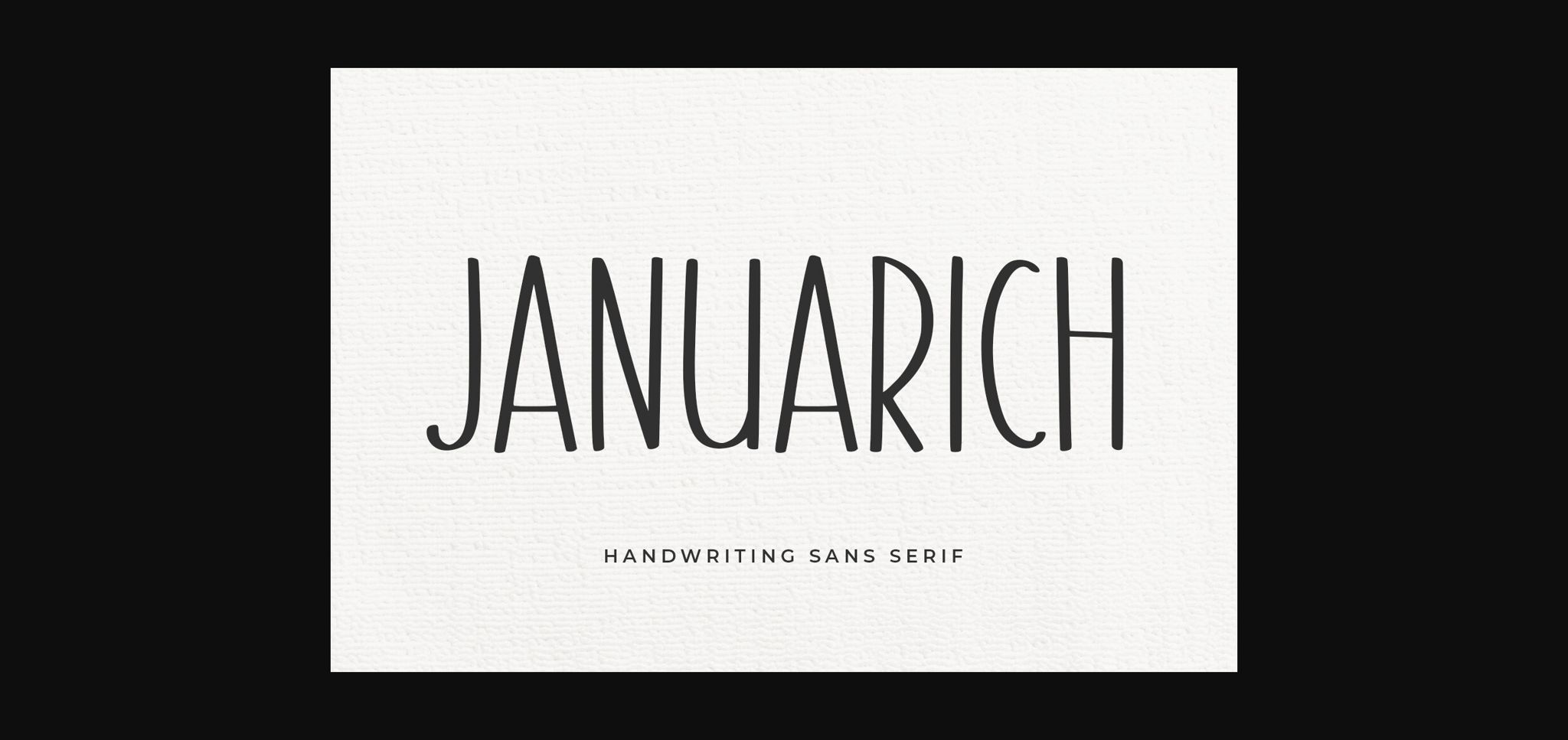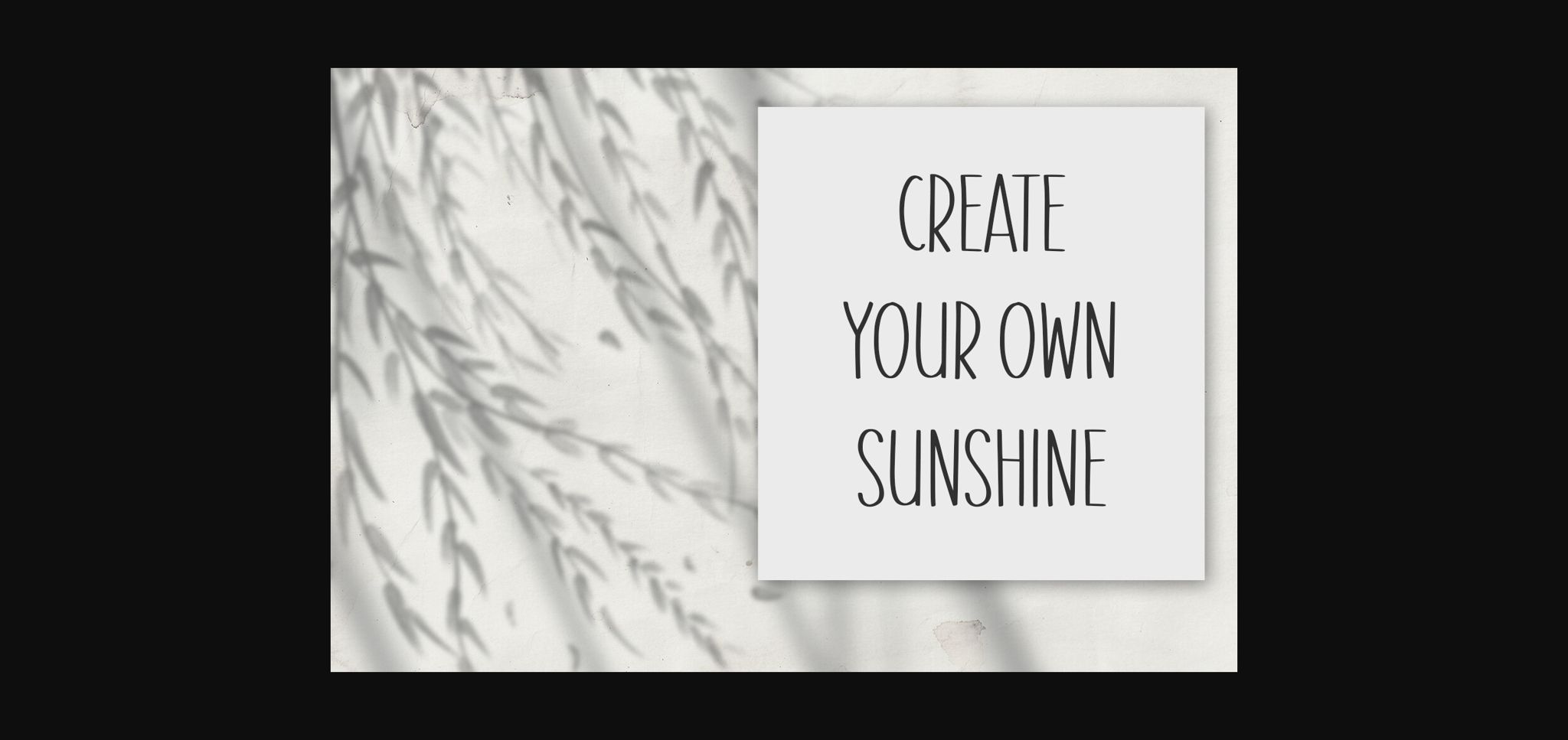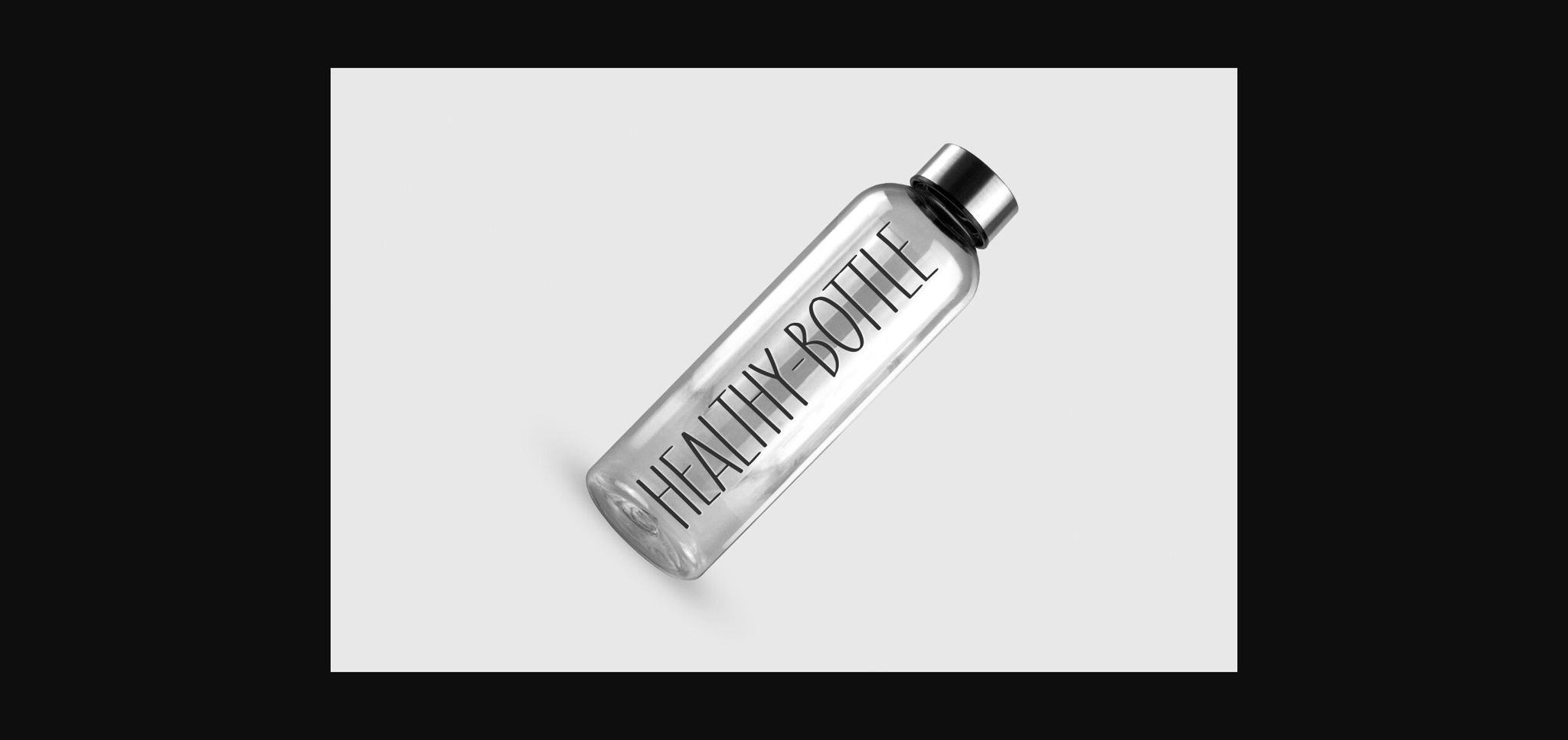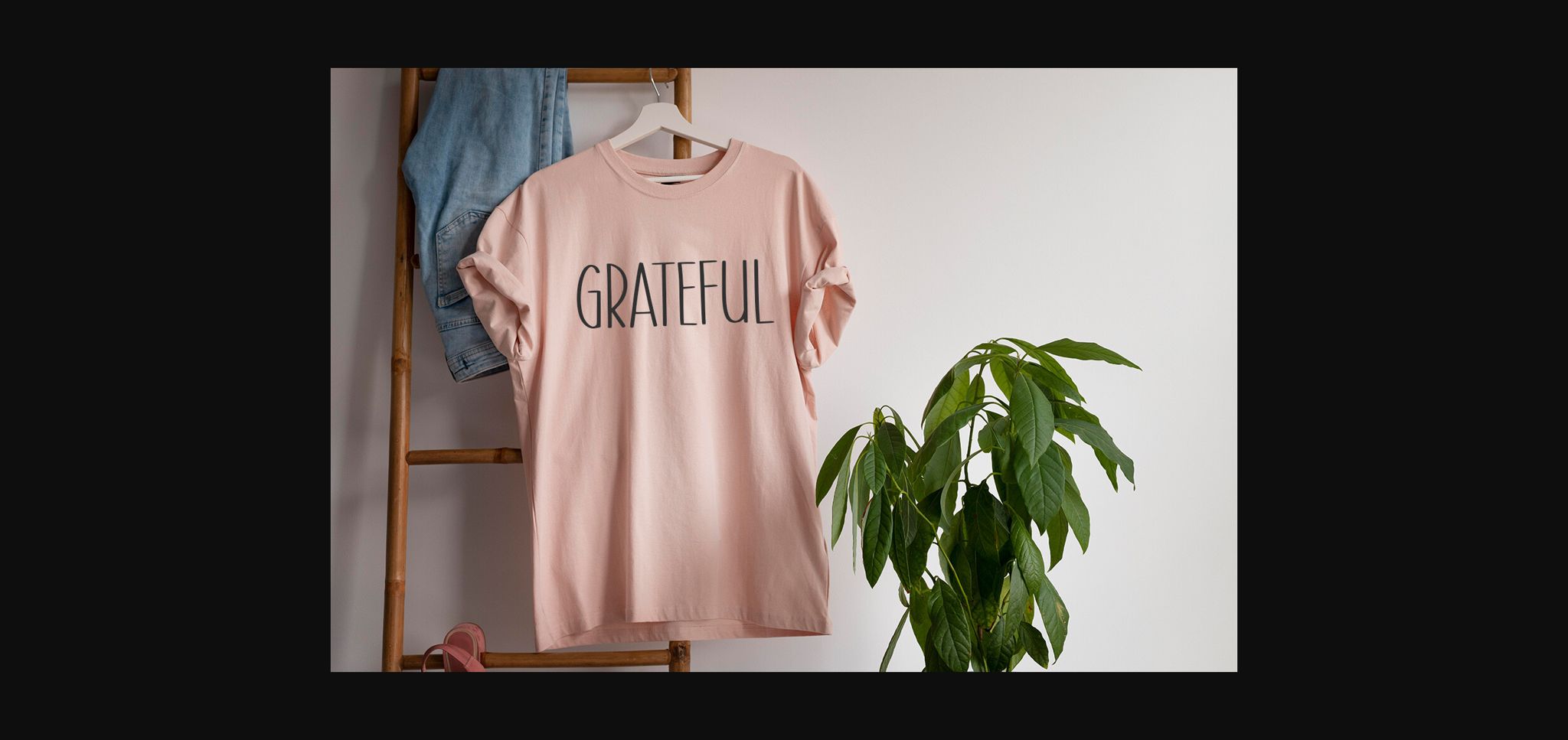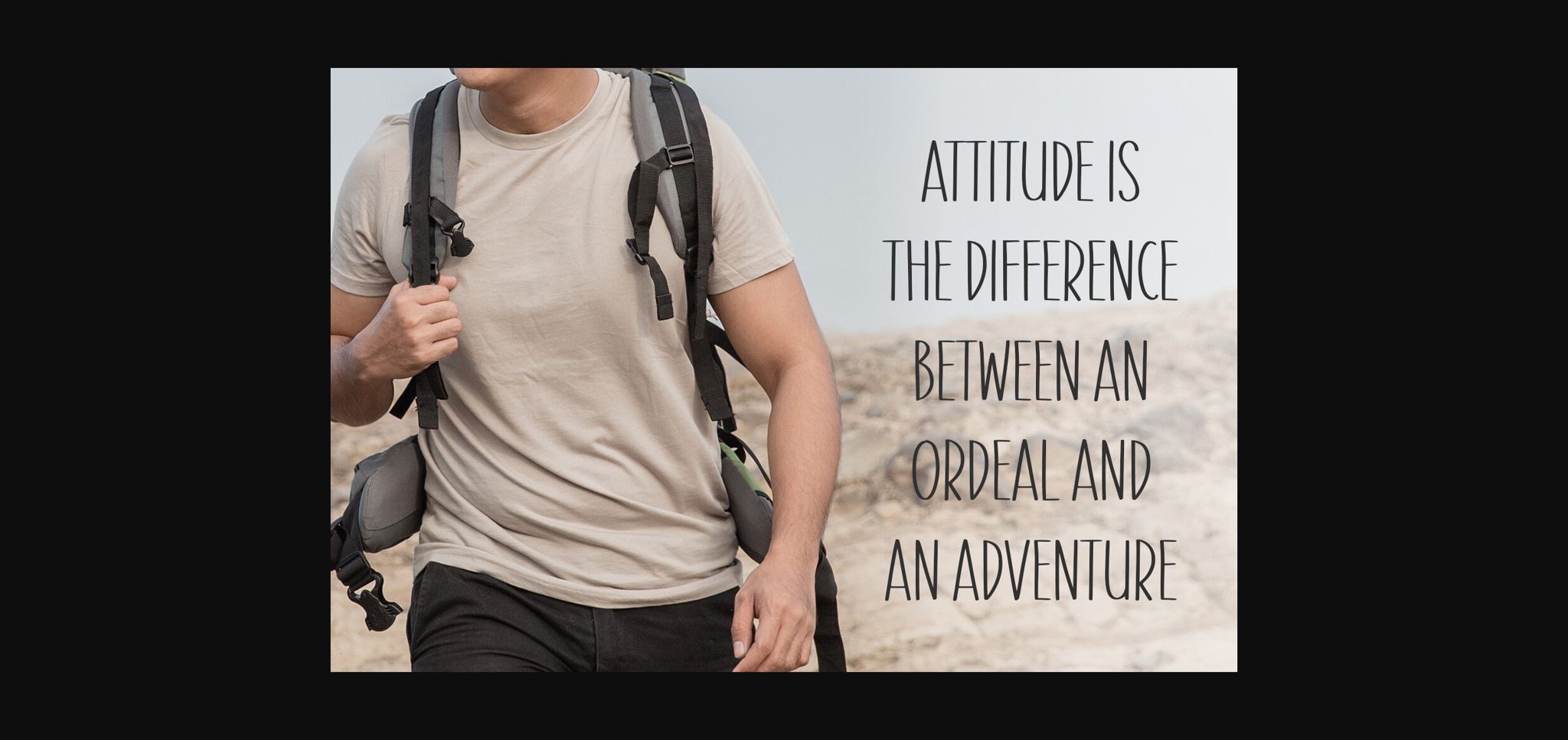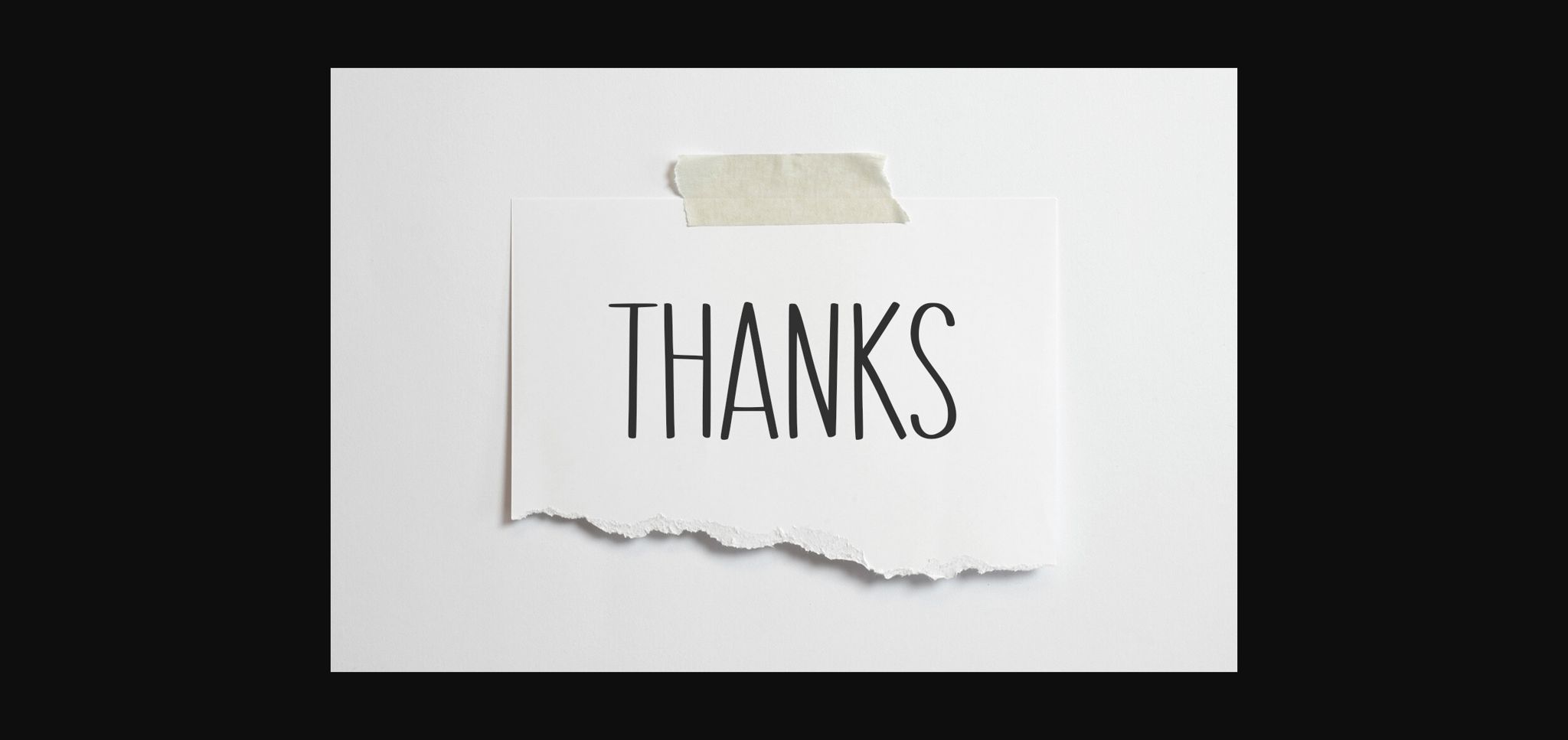
Januarich is a cute and friendly sans-serif font. It is great for quotes, logos, t-shirt designs, tote bag designs, crafts, cards, banners, social media, and more.